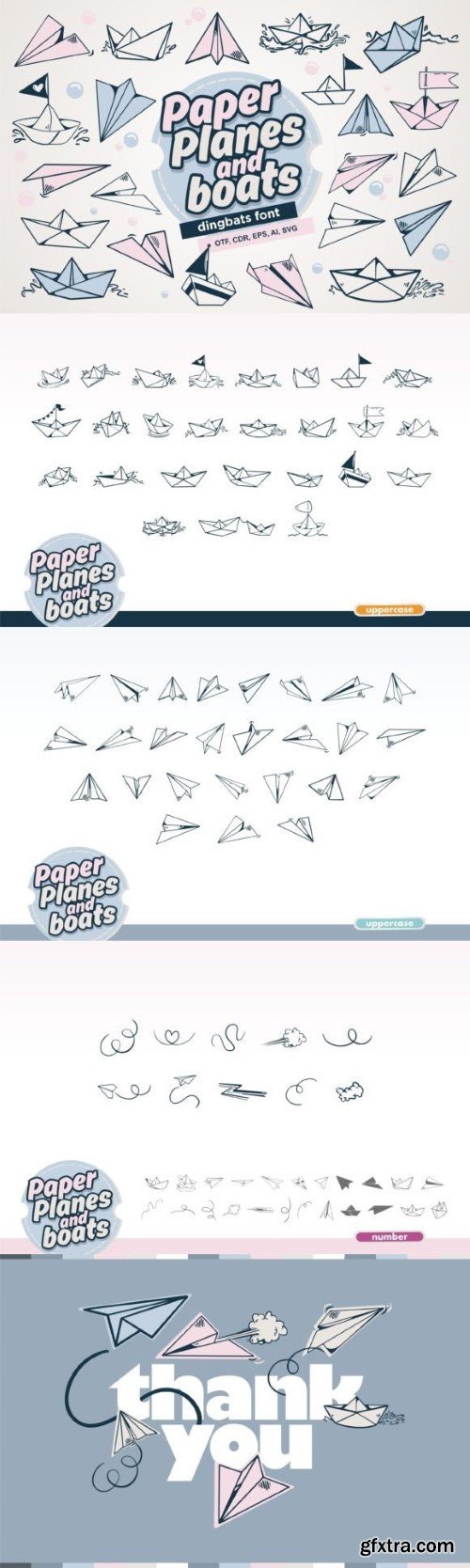
纸飞机和船字体
Paper Planes and Boats is a playful dingbat font. These are hand-drawn dingbats that can be used for a variety of purposes, be it decorating designs or decorating plans. Add them to your creative ideas and make your designs outstanding!